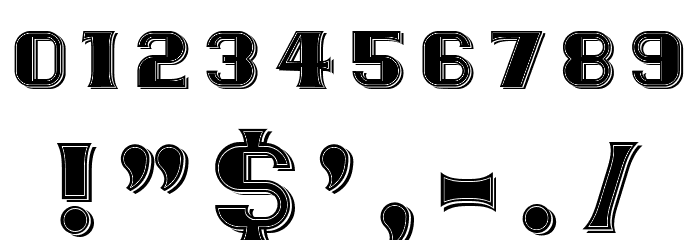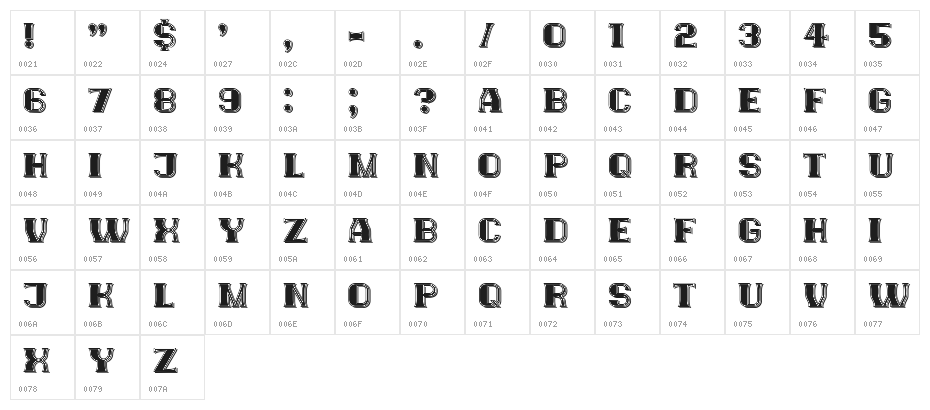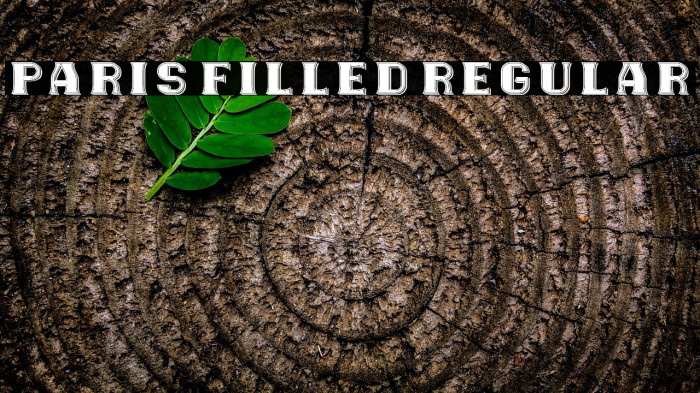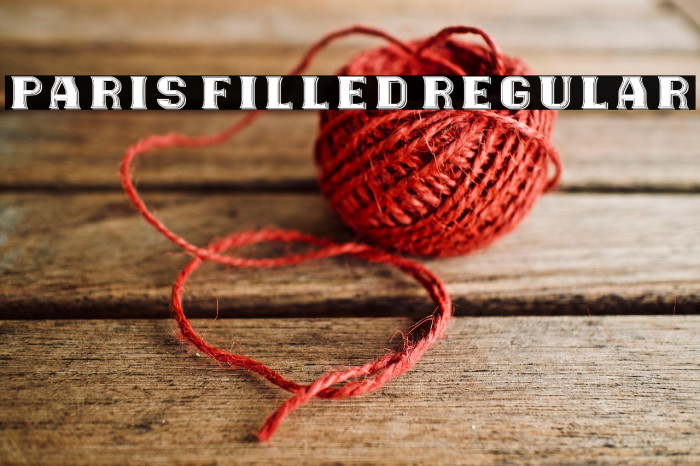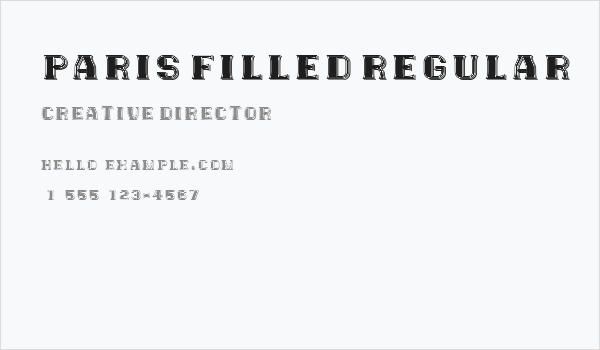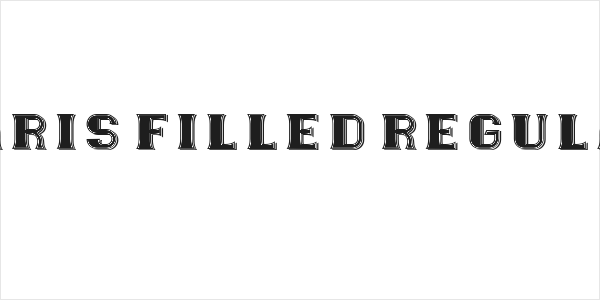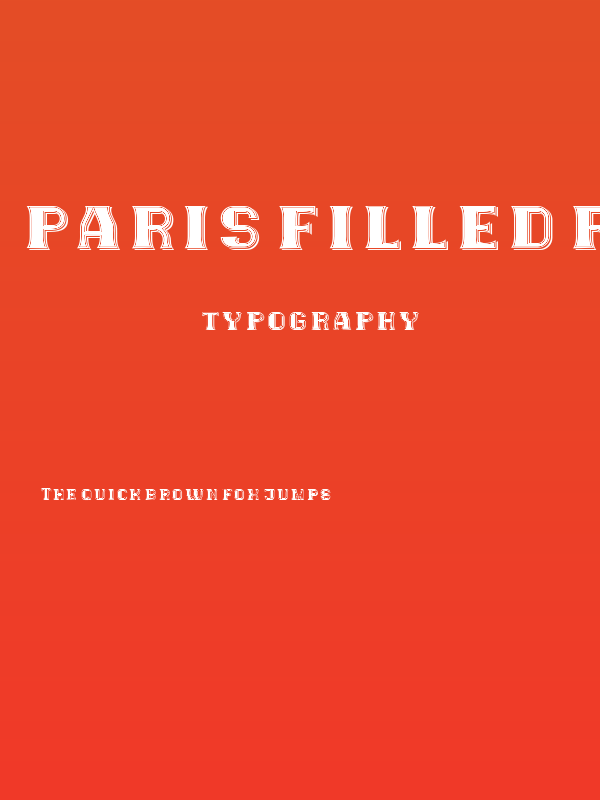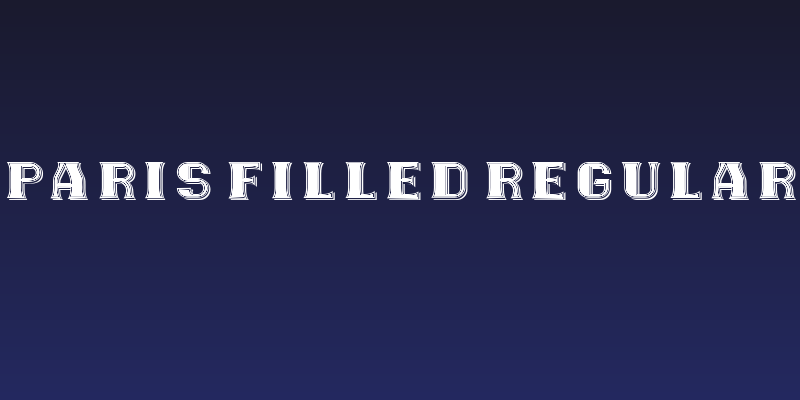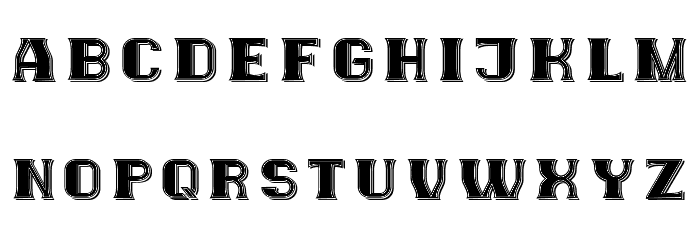
Paris Filled Regular Font
Paris Filled Regular Description
This font features a bold and striking design with a filled, shadowed effect that gives it a three-dimensional appearance. The uppercase letters are robust and commanding, making it ideal for attention-grabbing headlines. The numerals and special characters maintain the same boldness, ensuring consistency across all text elements. The font's unique style is reminiscent of vintage signage, with a modern twist that makes it versatile for various design projects. Its decorative nature is balanced by a clear and legible structure, making it suitable for both display and branding purposes.
| Proposed Projects | Ideal for poster designs, branding, logos, and any project requiring a bold, eye-catching typeface. |